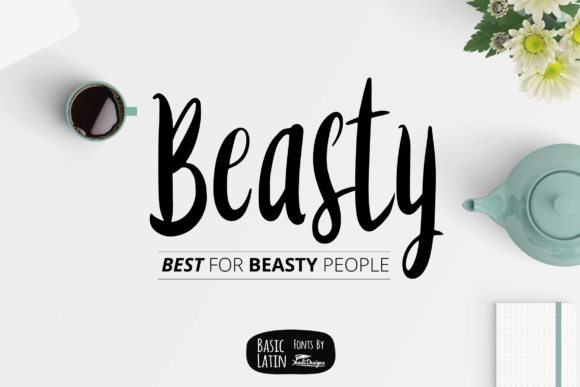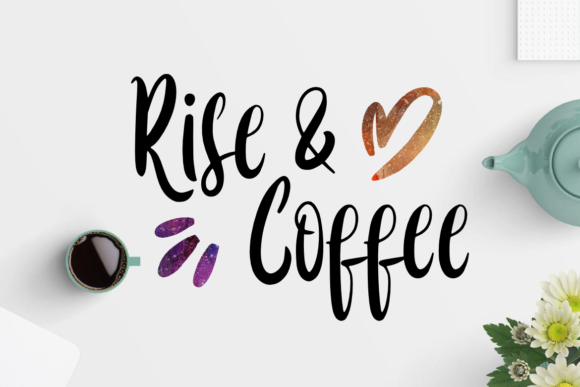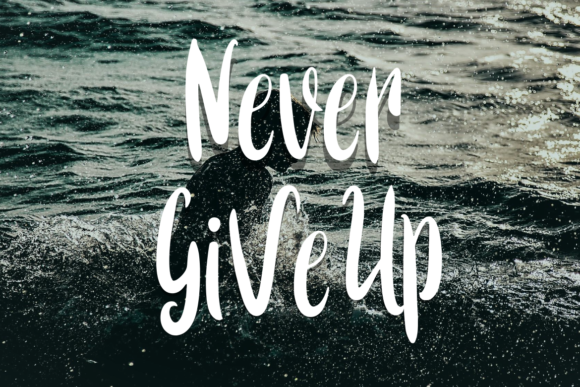
Beasty Font
About Beasty Font
Beasty is a versatile handwritten font, perfect for your future projects.
Use this font to give your next designs a cute and playful look.